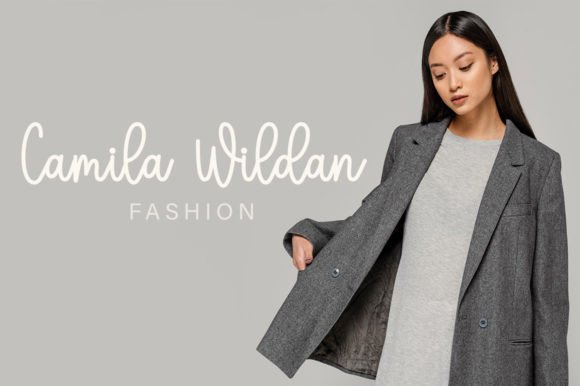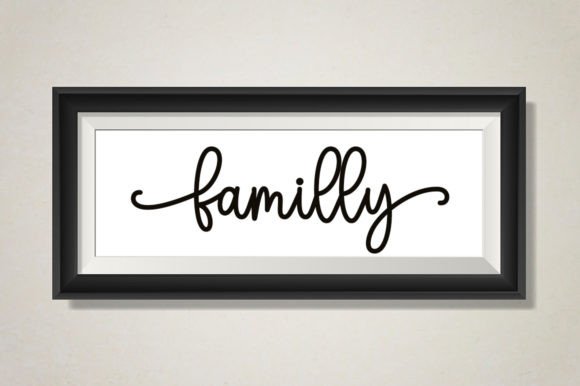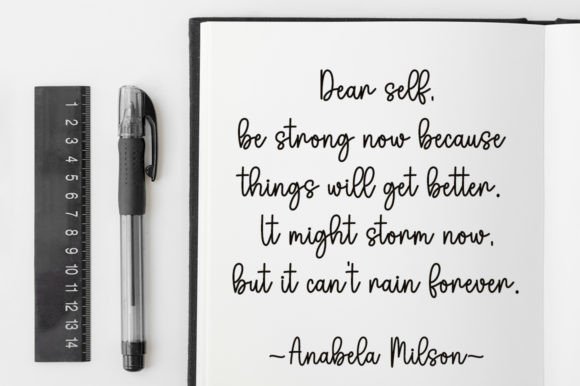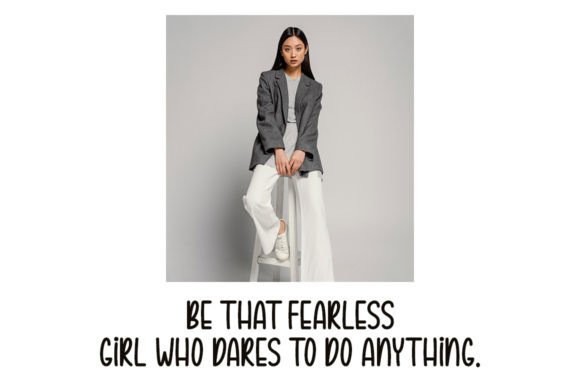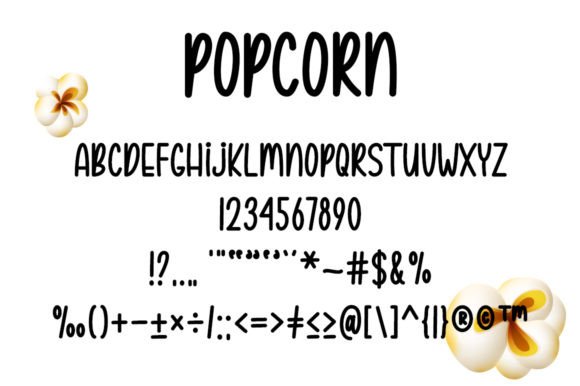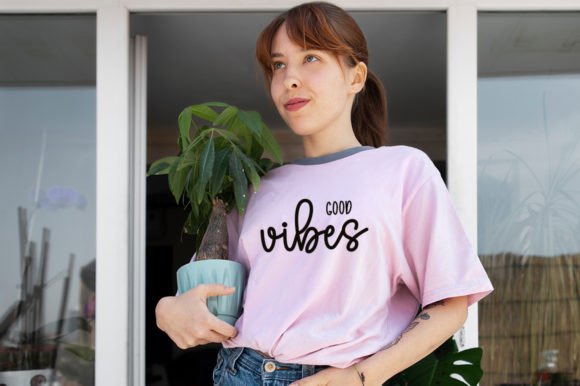
Introduction to Magic Popcorn Font
Have you ever stumbled upon the perfect font that makes your creative project feel truly special? I have, and it’s a moment I still cherish to this day. It was a late night, and I was working on a custom wedding invitation for a dear friend. As I browsed through my design resources, I stumbled upon the Magic Popcorn Font – a stylish and delicate duo font that instantly captured my heart.
The combination of the sans serif and script styles in Magic Popcorn Font was nothing short of magic. With its high-quality design, it effortlessly added a romantic touch to the invitation, making it truly unforgettable. As a designer, I know how valuable it is to have a reliable design resource that can elevate our work to the next level.
Today, I’m excited to share this hidden gem with you, and I’m confident that it will become a staple in your design arsenal just like it has in mine.
Key Features of Magic Popcorn Font
- High-quality design: The Magic Popcorn Font is crafted with attention to detail, ensuring a professional and polished look for any creative project.
- Unique characteristics: The Magic Popcorn Font features a playful and whimsical design, making it an ideal choice for creative projects that require a touch of magic and wonder.
Honest Review: Magic Popcorn Font
I recently came across the Magic Popcorn Font, and I must say it’s an intriguing addition to any designer’s toolkit. As a designer, I’m always on the lookout for high-quality fonts that can elevate my creative projects to the next level.
Here are some pros and cons of the Magic Popcorn Font:
- ✨ High-quality font that’s perfect for creative projects
- ⚠️ Limited character set, which may be a drawback for some designers
- ⚠️ Not suitable for body text, due to its decorative nature
Overall, I’m impressed with the Magic Popcorn Font. It’s a great design resource that can add a touch of whimsy to any creative project. While it may have some limitations, I think it’s well worth downloading and experimenting with in your designs.
Tips for Getting the Most Out of Magic Popcorn Font
Combine the font with other design resources for a creative project.
Experiment with different font sizes and styles to achieve the desired effect.
Use the Magic Popcorn Font for a variety of creative projects, such as:
1. Social media graphics.
2. Blog post titles.
3. Presentation slides.
4. Flyers and brochures.